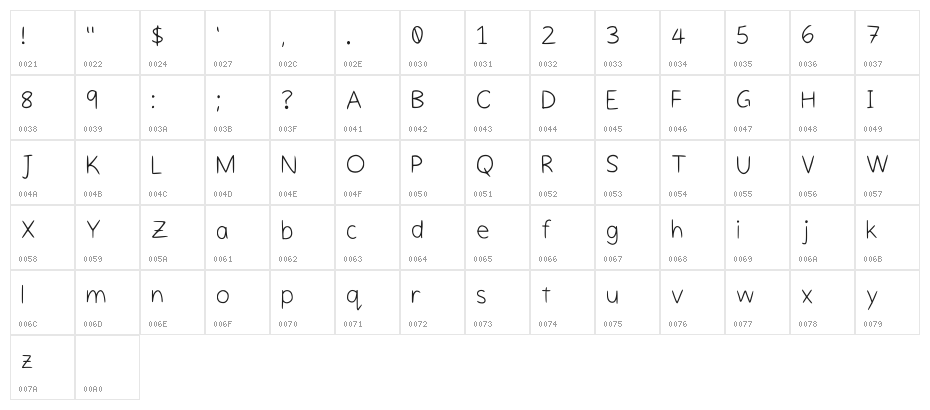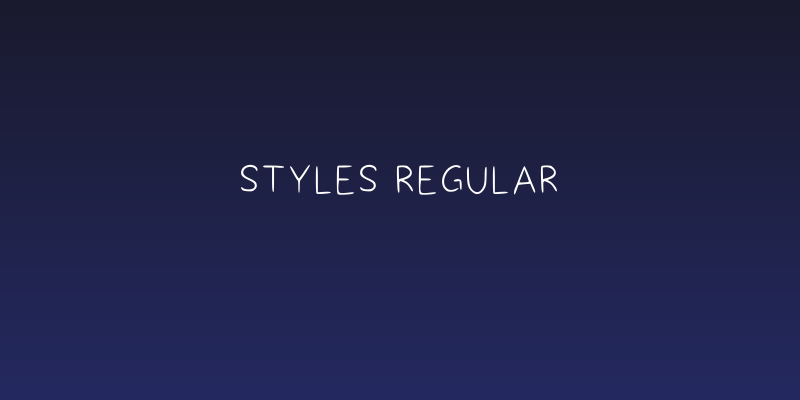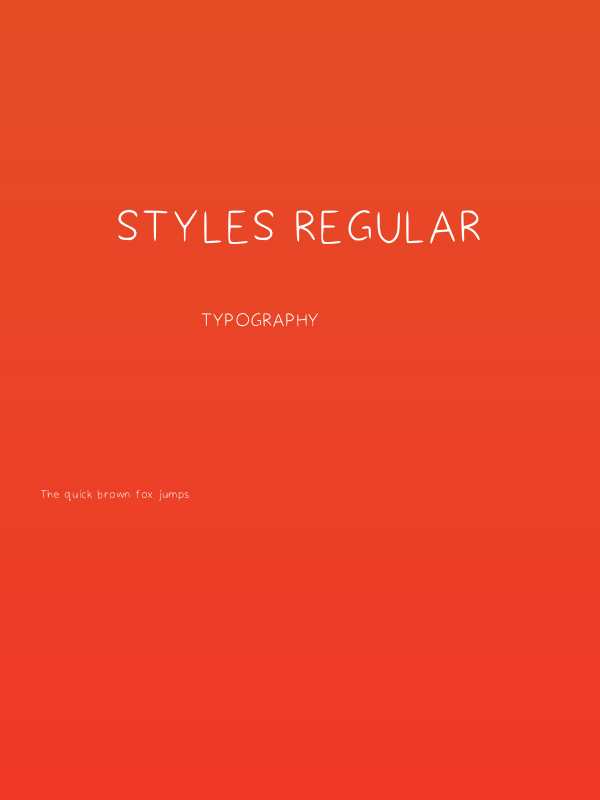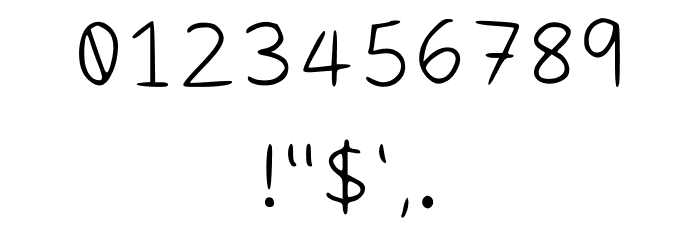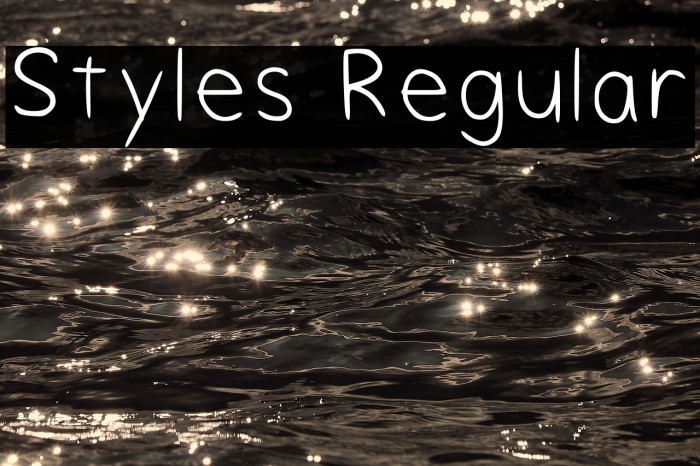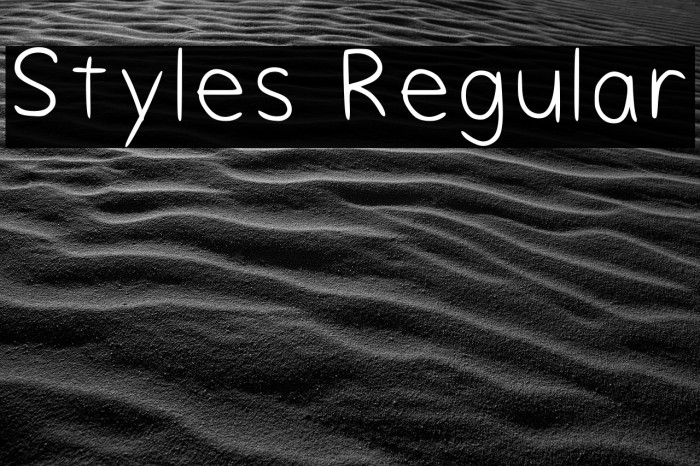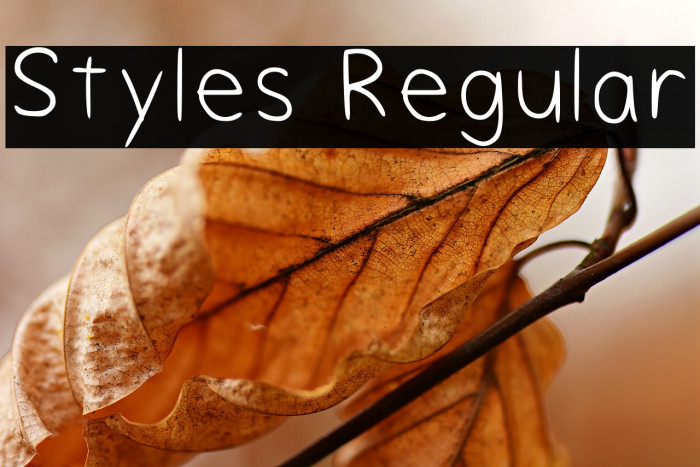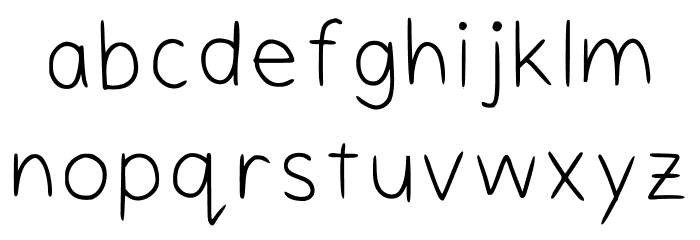
Styles Regular Font
Styles Regular Description
This font features a playful and casual handwritten style, characterized by its smooth curves and slightly irregular strokes. The letters are evenly spaced, giving it a clean and approachable appearance. Its simplicity and charm make it suitable for a variety of informal and creative projects. The font maintains a consistent weight throughout, with rounded edges that enhance its friendly and inviting look. Its legibility is high, making it versatile for both digital and print media. The overall style is modern and whimsical, appealing to audiences looking for a relaxed and personal touch in their typography.
| Overall Style | Modern, Whimsical |
| Proposed Projects | Ideal for greeting cards, children's books, casual branding, and social media graphics. |
| Author | Fonts by Khurasan |